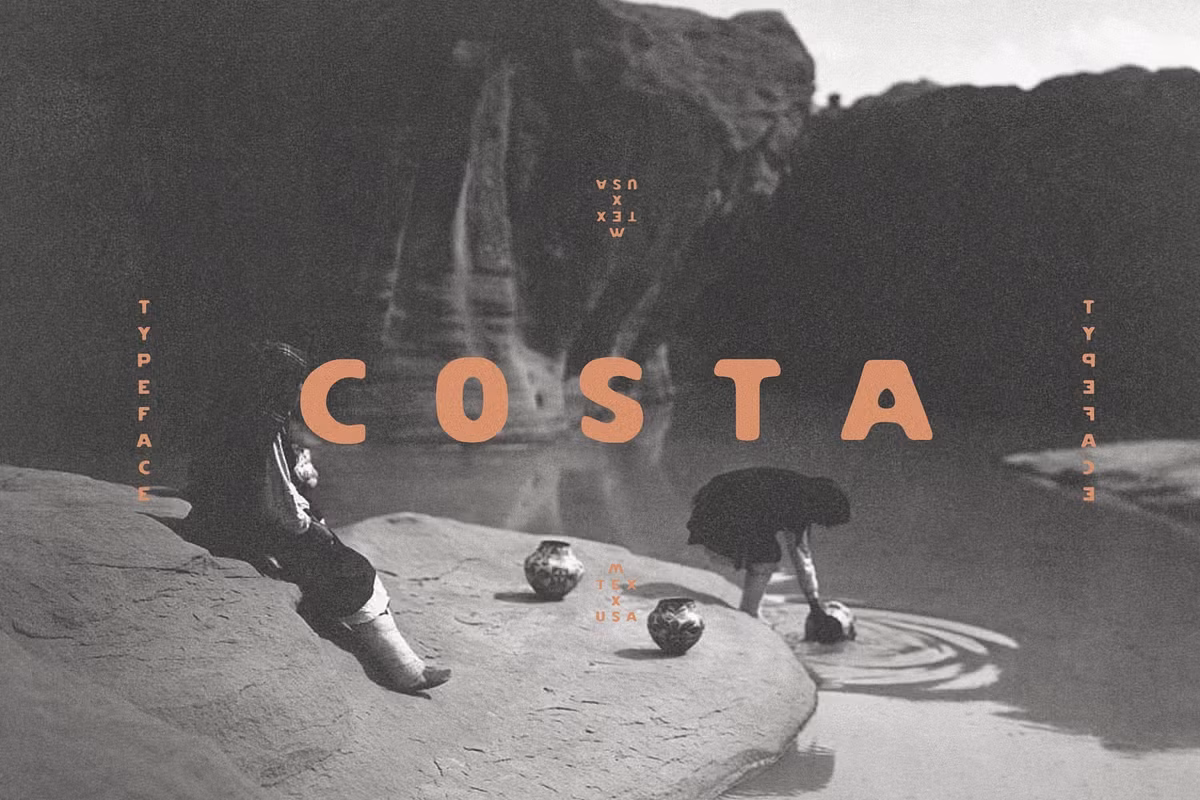
Add a touch of modern sophistication to your designs with Costa Typeface Free Download. This elegant sans-serif font features clean lines and balanced proportions, making it perfect for a wide range of projects, including branding, logos, websites, editorial design, and more.
Costa offers a sleek, contemporary aesthetic with great versatility, ensuring that your text is both readable and stylish. It includes uppercase and lowercase letters, numerals, punctuation, and multilingual support, providing you with everything needed to experiment with a variety of design layouts.
Perfect for projects that require a modern, professional look with a minimalistic vibe. For any commercial use, make sure to purchase the appropriate license. Download Costa Typeface Free Download today and elevate your design work with sharp, clean typography.